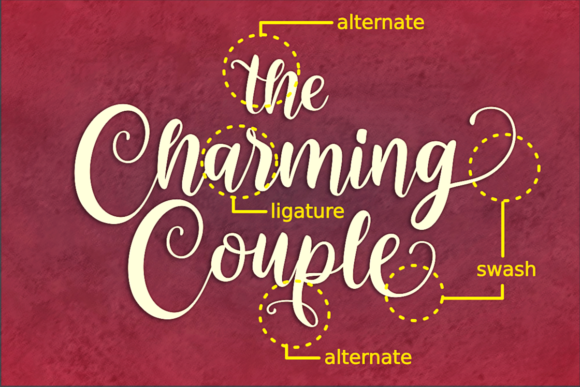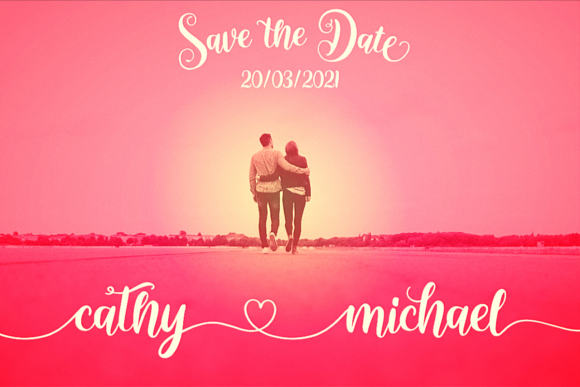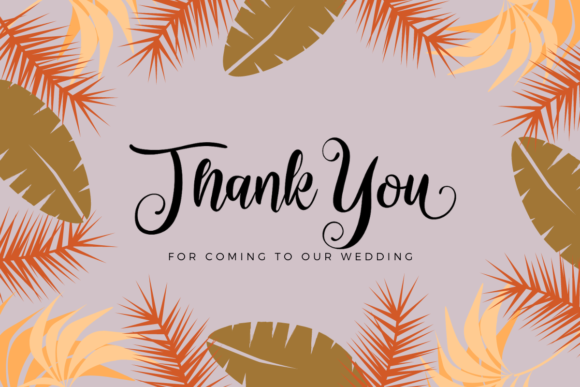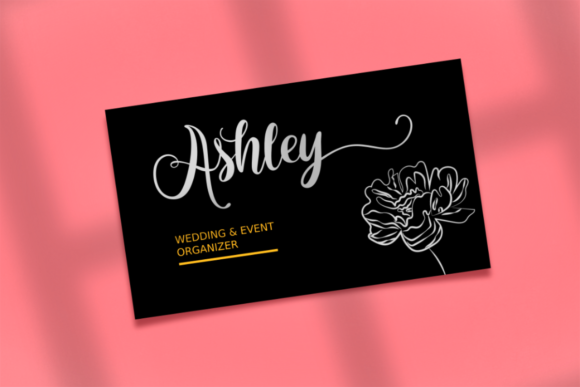
About The Charming Couple Font
The Charming Couple is an enchanting handwritten font. This versatile script font has a wide spectrum of applications ranging from greeting cards to headlines and is guaranteed to add a romantic feel to your next project.